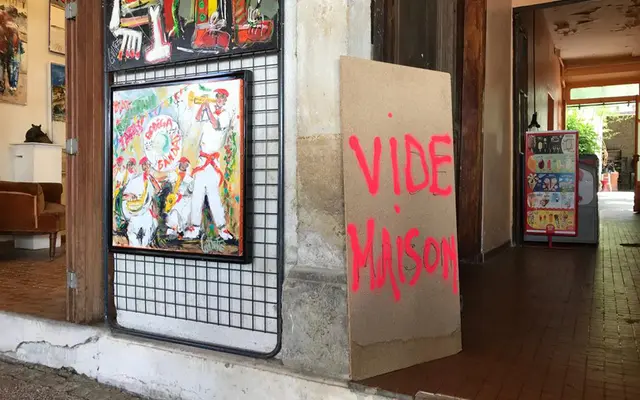
Safari
A typeface project rooted in a photographic archive of wild and institutional public signage collected across France from 2014 onwards.
Initiated as a personal research project in 2014, Safari draws on a corpus of photographs documenting hand-painted signs, road markings, promotional inscriptions and other public-space lettering. The collection deliberately sets institutional forms against vernacular, privately-made inscriptions to reveal the breadth of production methods, from colour and letterform drawing to materials and fixing techniques. It connects to François Chastanet's writing on the survival of written practices in public space.
Safari is rooted in a photographic archive of wild, hand-painted and institutional signage collected from public spaces since 2014, placing it firmly in the display/vernacular category drawn from found lettering traditions.